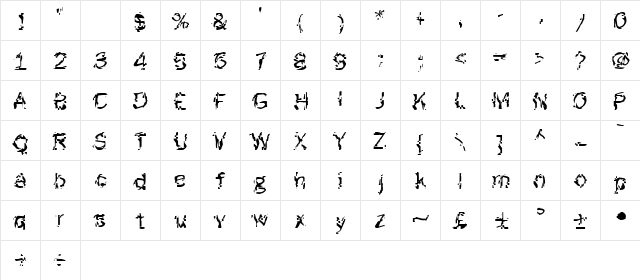
Acid daze two
Design Context for Acid daze Typeface
Acid daze is a composed and adaptable typeface that performs quietly and consistently across a wide range of design contexts.